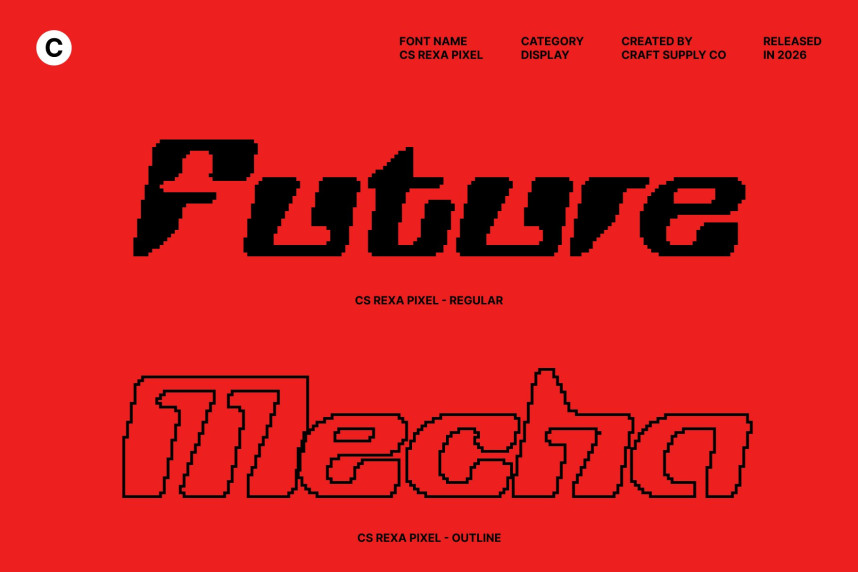
CS Rexa Pixel Font
CS Rexa Pixel Font – Futuristic Font with Y2K Energy Retro-Futuristic Design with Pixel Attitude. This is a futuristic display font inspired by the bold optimism of Y2K aesthetics. Built with clean structure and pixel-influenced forms, it blends early-digital nostalgia with modern precision. The result is a typeface that feels playful yet forward-looking perfect for designs that want to feel experimental, energetic, and stylish.